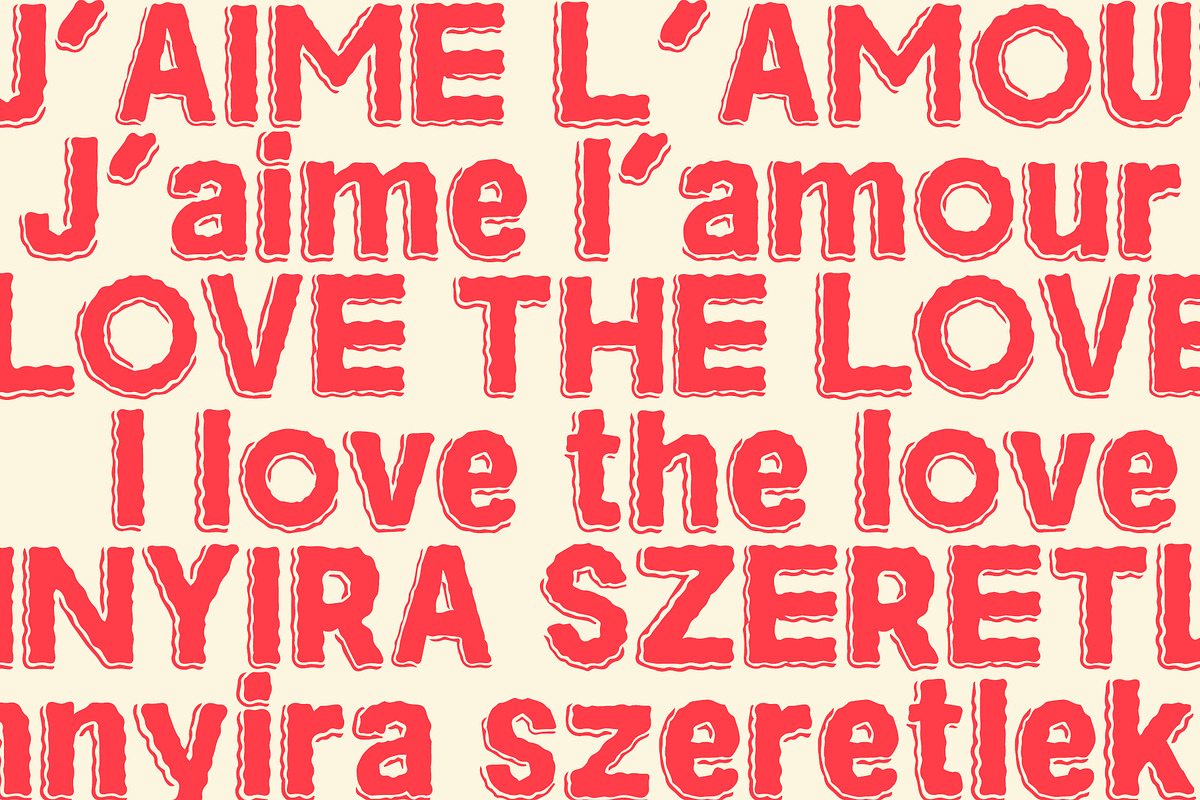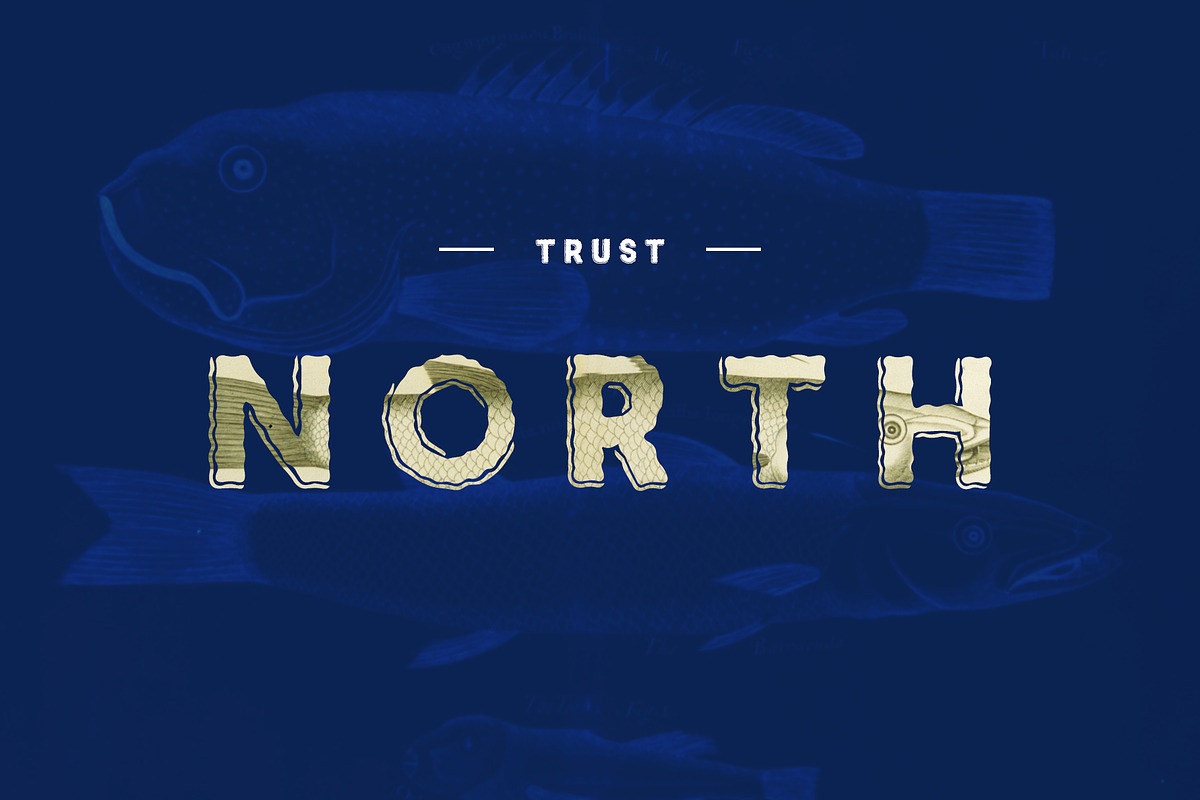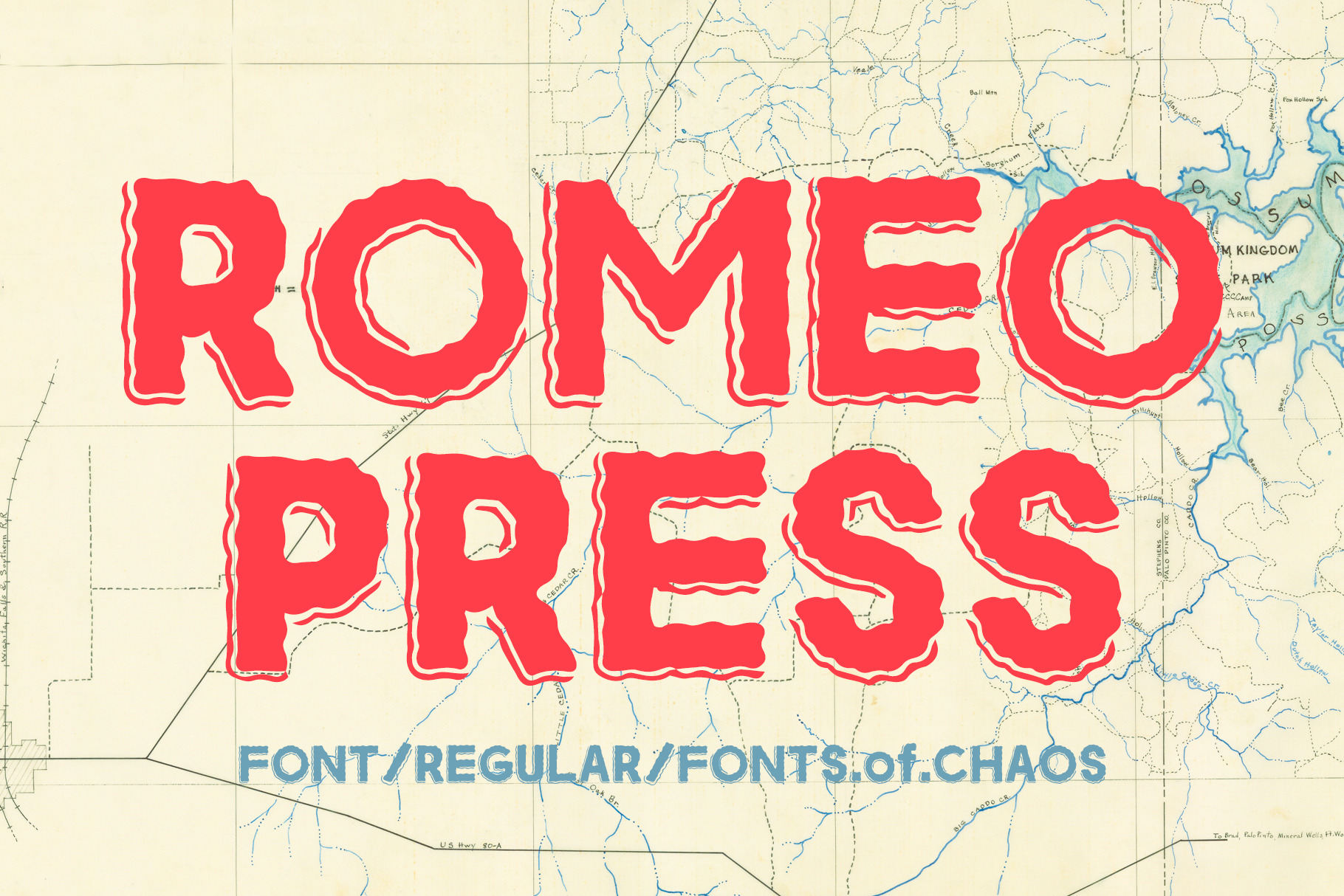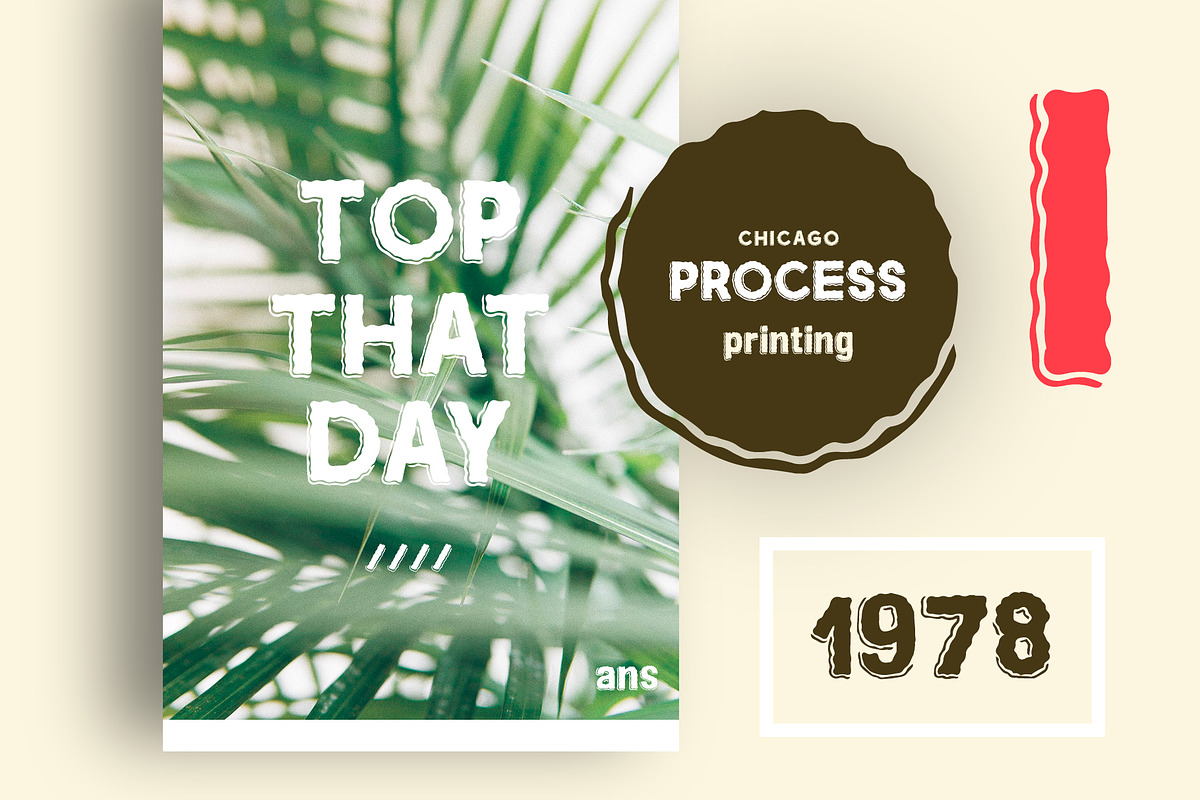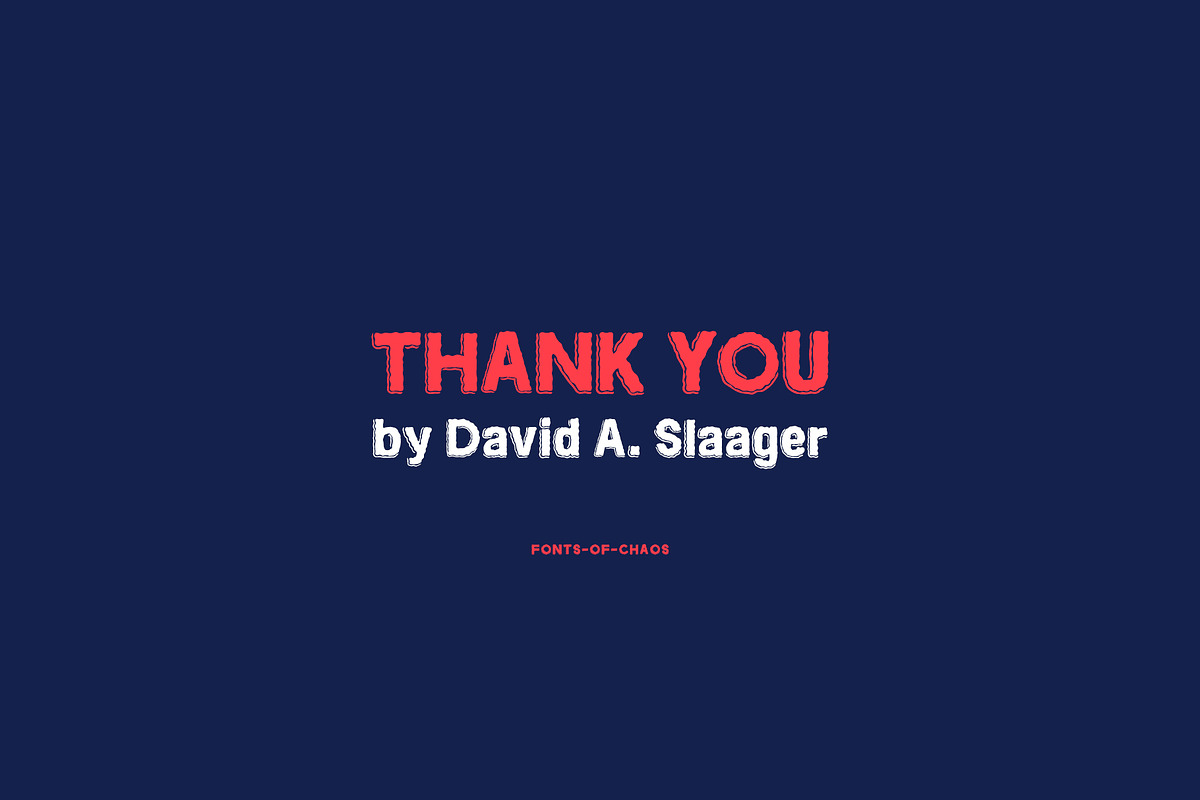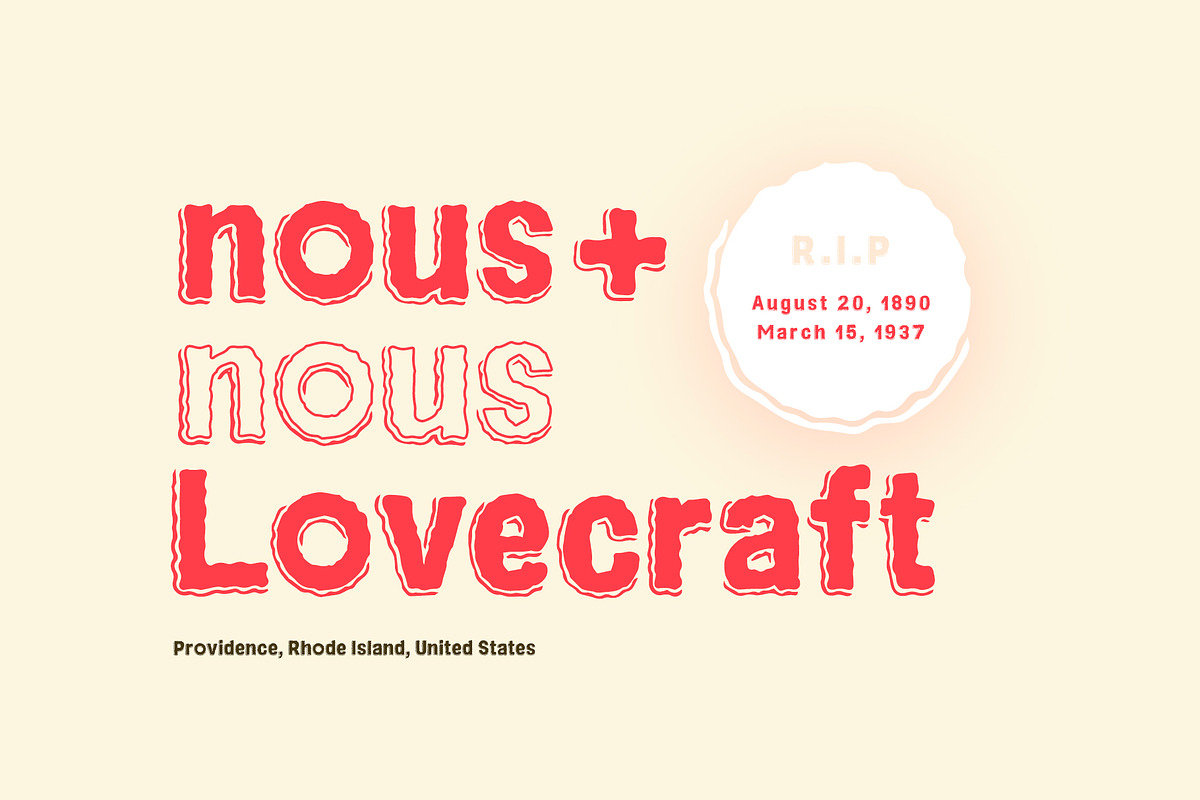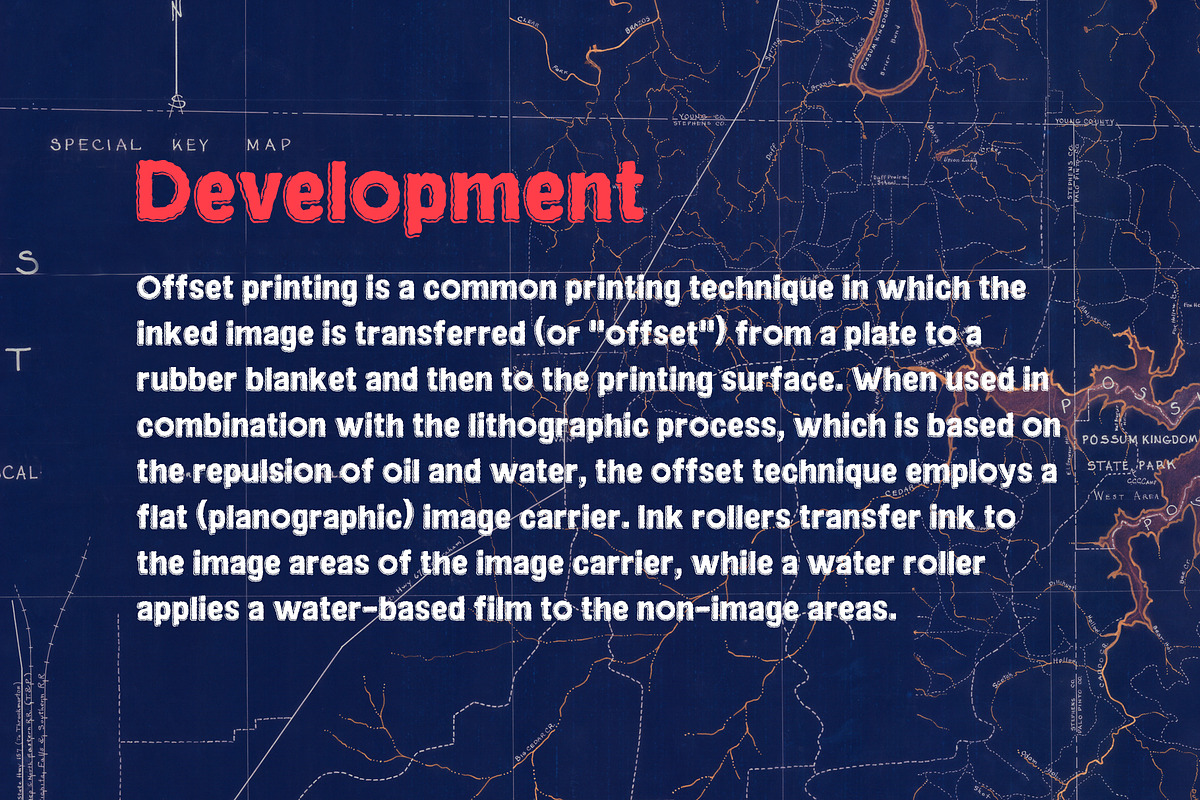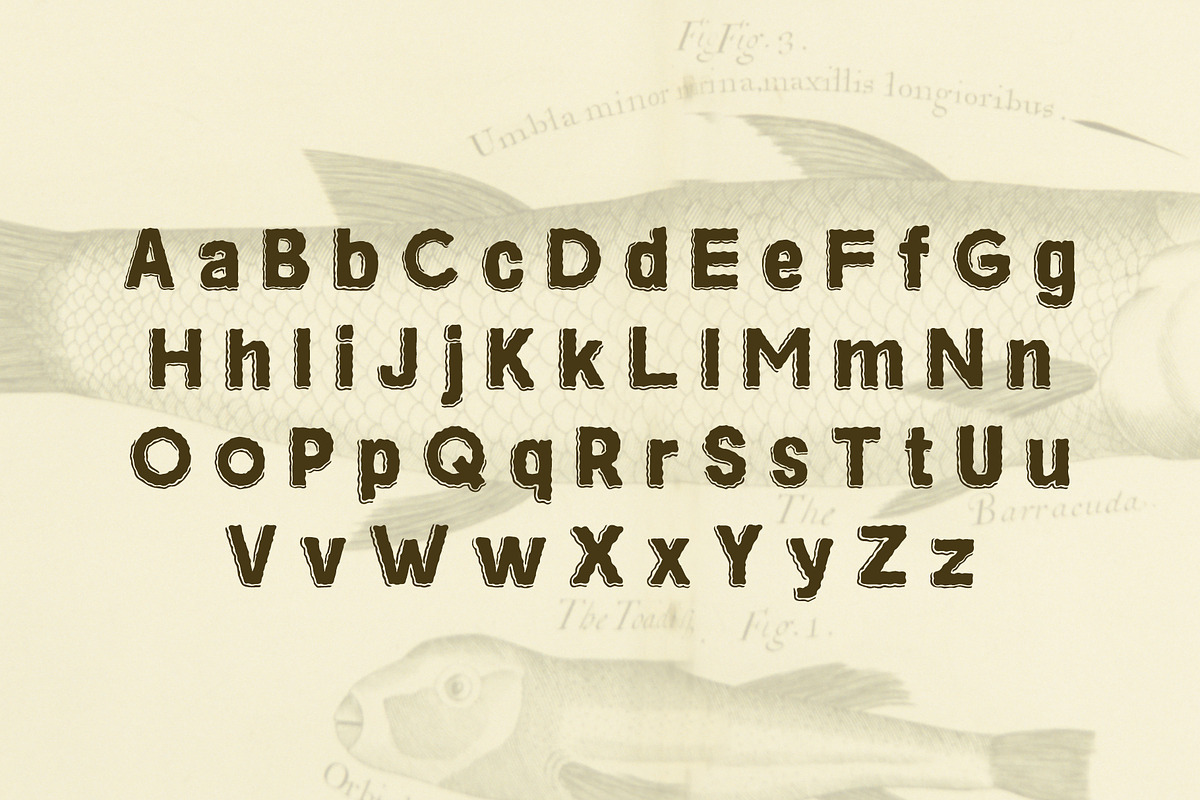
Romeo Press - Font
Fonts of Chaos - Romeo Press - Font regular.
Inspired by the printed typefaces of the 1950s, Romeo Press is particularly well suited to logos or isolated words for print or the web. Bold and imposing, it is particularly well suited to headlines.